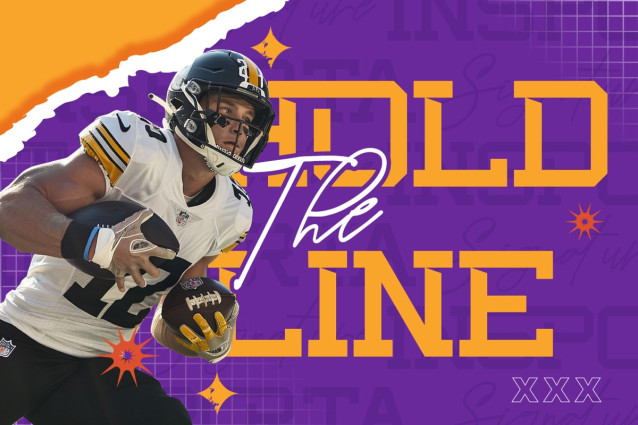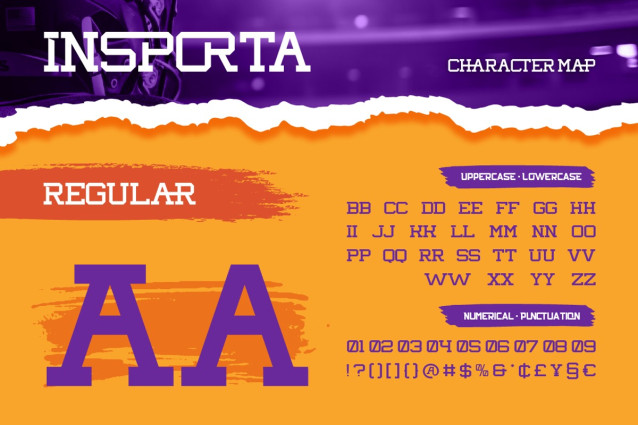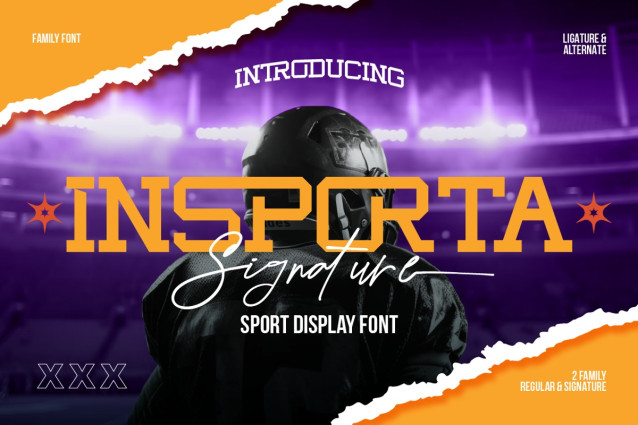
Insporta Font
Insporta Font is a bold and energetic font duo designed to bring the spirit of competition into every design. This sporty typeface combines a strong all-caps serif font that inspired by college varsity aesthetic with a stylish signature script. Perfect for sports branding, athletic posters, team logos, or game day merchandise, Insporta Signature combines modern varsity typeface vibes with a personal, handwritten touch. Whether you’re designing for a football match, a college event, or a fitness brand, this sports team font has got you covered. With its classic varsity vibe and modern handwritten twist, Insporta Signature delivers a “game day ready” look that stands out.